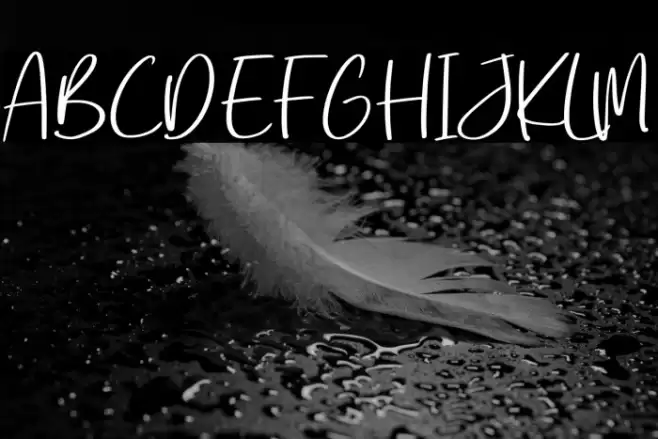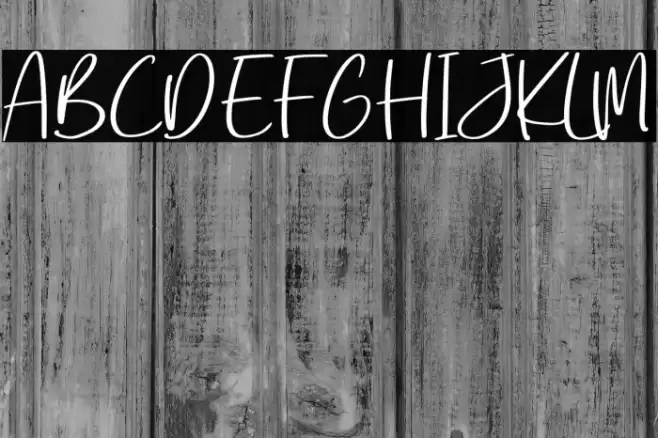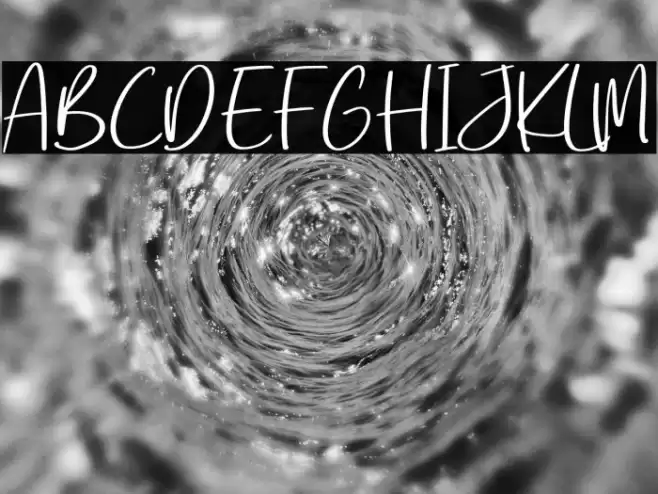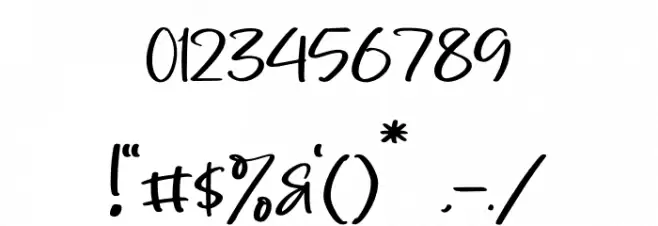
fantasy boxstar Font
fantasy boxstar Description
This font exudes a playful and casual handwritten style, characterized by its fluid and dynamic strokes. The uppercase letters are bold and slightly irregular, giving them a lively and spontaneous appearance. The lowercase letters maintain a consistent flow, with some letters extending slightly below the baseline, adding to the font's whimsical charm. Numbers are clear and legible, while special characters retain the same energetic style. Overall, this font captures a sense of creativity and informality, making it ideal for projects that require a personal touch.
A playful and casual handwritten font with dynamic strokes from Uncategorized fonts.
- Font: fantasy boxstar
- Proposed Projects: Ideal for greeting cards, personal branding, social media graphics, and creative invitations.
- Overall Style: Casual, Playful
- Use Case: Logos, Invitations, Social Media Graphics
fantasy boxstar UPPERCASE
fantasy boxstar LOWERCASE
fantasy boxstar OTHER CHARS